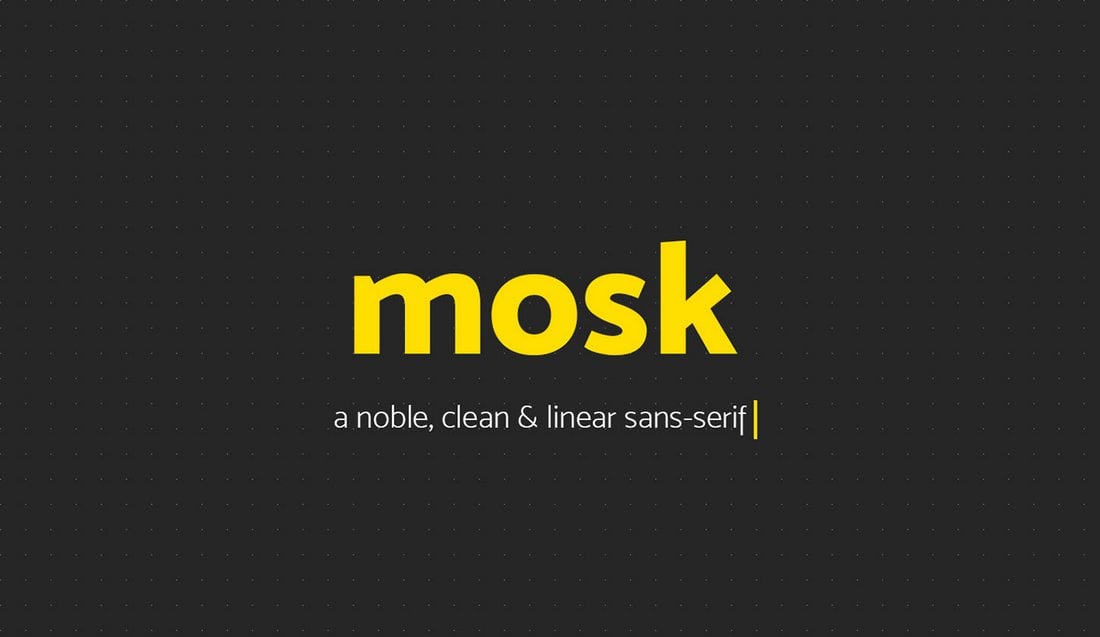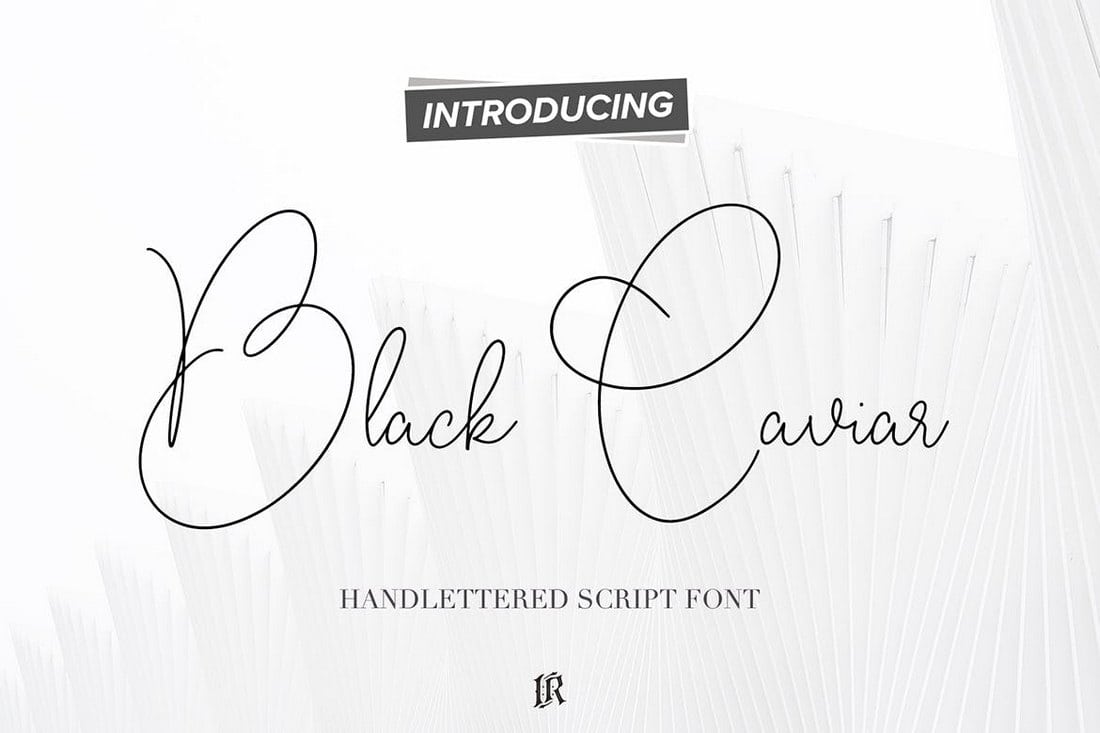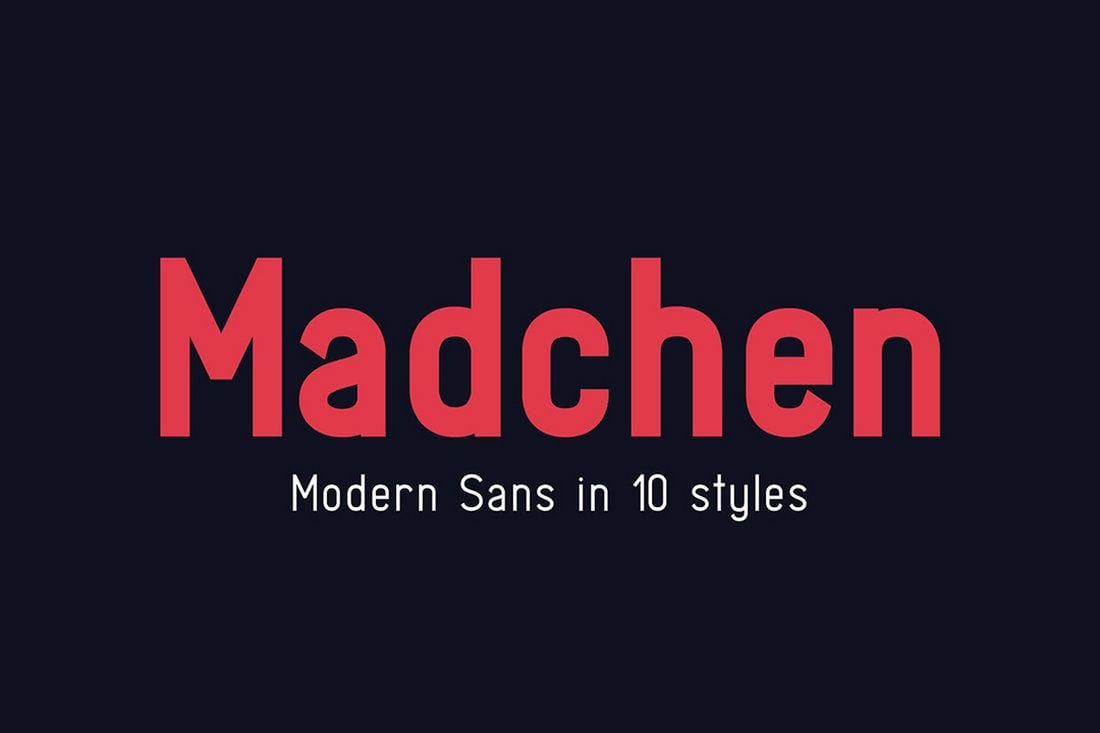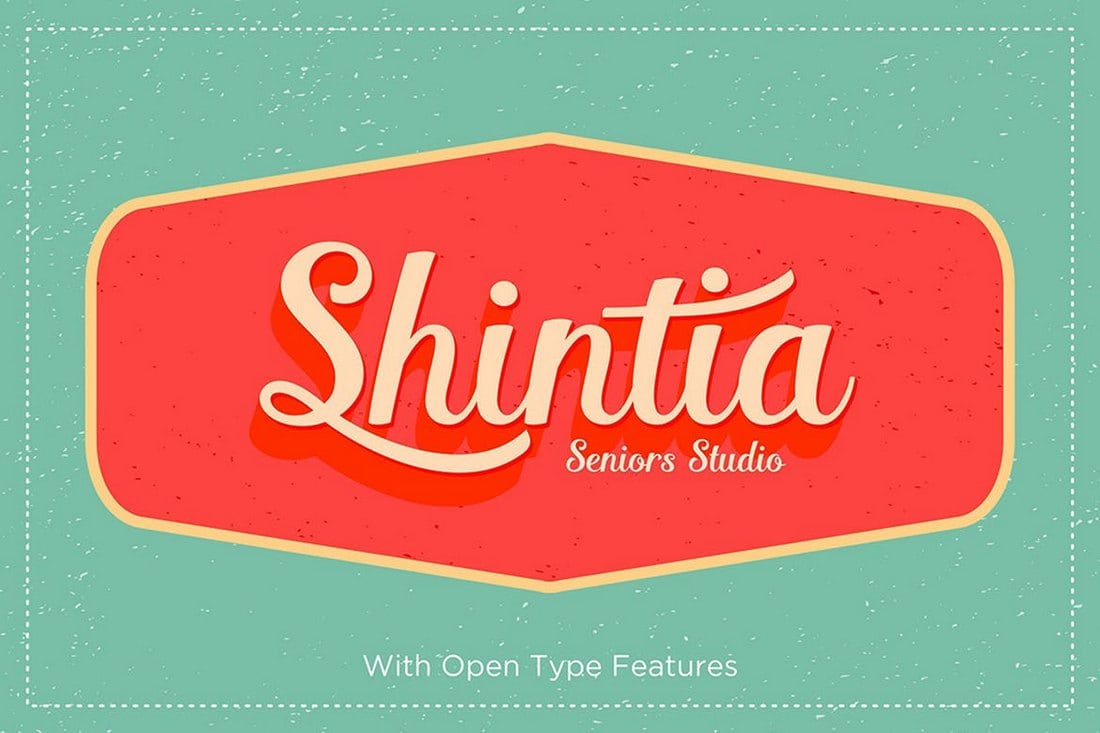
Typography plays a major role in business card design. It’s not easy to find a font that matches your client’s brand and business. With this collection of the best fonts for business cards, we’re suggesting dozens of fonts and typefaces that are a great fit for your next business card design.
A business card is more than just a tool for networking. It also helps to represent your brand, and show off professionalism or personality.
That’s why it’s crucial to use the perfect font when designing a business card.
In this post, we’re featuring some of the best fonts for business cards you can use to create just the right style and tone for your design.
We’re also sharing a set of tips for choosing the right business card font to point you in the right direction.
Qanaya is an elegant serif font family that comes with 3 font weights, uppercase and lowercase letters, and alternate characters. This font features a truly elegant design that makes it the perfect choice for modern corporate business card designs.
Solomon is another professional serif font family that features a creative design. It’s most suitable for making luxury, fashion, and apparel related business card designs. The font is available in regular, round, and semi-bold weights.
Author Type if a hand-crafted brush font that comes with a stylish hand-lettering design. It features a unique look that will help personalize your business card designs. The font features both uppercase and lowercase letters with swashes and multilingual support.
Southampton is a handwritten script font that’s perfect for designing a creative business card or adding an elegant signature to your business card design. It also includes lots of glyphs, swashes, and a web font version as well.
A yet another creative script font with a professional design. This font features a unique design that’s been handcrafted using markers. It includes both uppercase and lowercase letters.
Leyton is a free serif font featuring a luxury design. This font is perfect for designing business cards for high-end fashion brands, hotels, and agencies. The font is free to use with your personal projects.
Billion Success is a stunning font perfectly fit for business cards, logos, watermarks, signatures, and a range of other elegant-looking brand identity designs. Check it out now.
Xaviera is a strictly professional font exclusively designed for business cards, headlines, film posters, and big banners. Pair it with whimsical, and decorative fonts to get the best results.
If you’re looking for a romantic, and feminine font for your business card, Lovely Photograph is an excellent choice. It’s a perfect contendor for wedding planner agencies, florists, magazines, fashion designers, and many more modern businesses.
Dalton is a modern business font that packs a powerful punch. It’s a perfect candidate for business cards, magazines, book covers, logos, and posters. Take Dalton for a spin, or add it to your shortlist at the very least.
Mosk features a clean and minimal design that gives it a creative look and feel. This makes this font a great choice for designing business cards for creatives. The font comes with 9 different styles as well.
This unique handmade font is ideal for showing off your creative side in the business card design. You can use this font to design cards for creatives, artists, fashion designers, and graphic designers.
Bouquet font comes with a mixed design of both modern and classic elements. It’s perfect for designing business cards for all kinds of professionals and businesses. The font includes swashes, ligatures, and multilingual support.
Matilna is a script font featuring a modern brush style design. It comes in two different versions, a clean typeface and a rough typeface. You can use both to design unique business cards.
This bold modern script font will fit in nicely with many types of business card designs. It comes in multiple variations, including swashes and a web font version.
This elegant font will make your business card signatures and names look as if they were written by hand. The font comes with regular and slant characters along with ligatures and multilingual support.
Vistol is a stylish free font family that includes multiple font weights and styles. This font comes with a thin and elegant design you can use to craft all kinds of business cards. The font is free to use with your personal and commercial projects.
Riviera is an elegant font featuring a unique character design. This font is most suitable for making creative logo designs. You can also use it to craft titles for business cards as well.